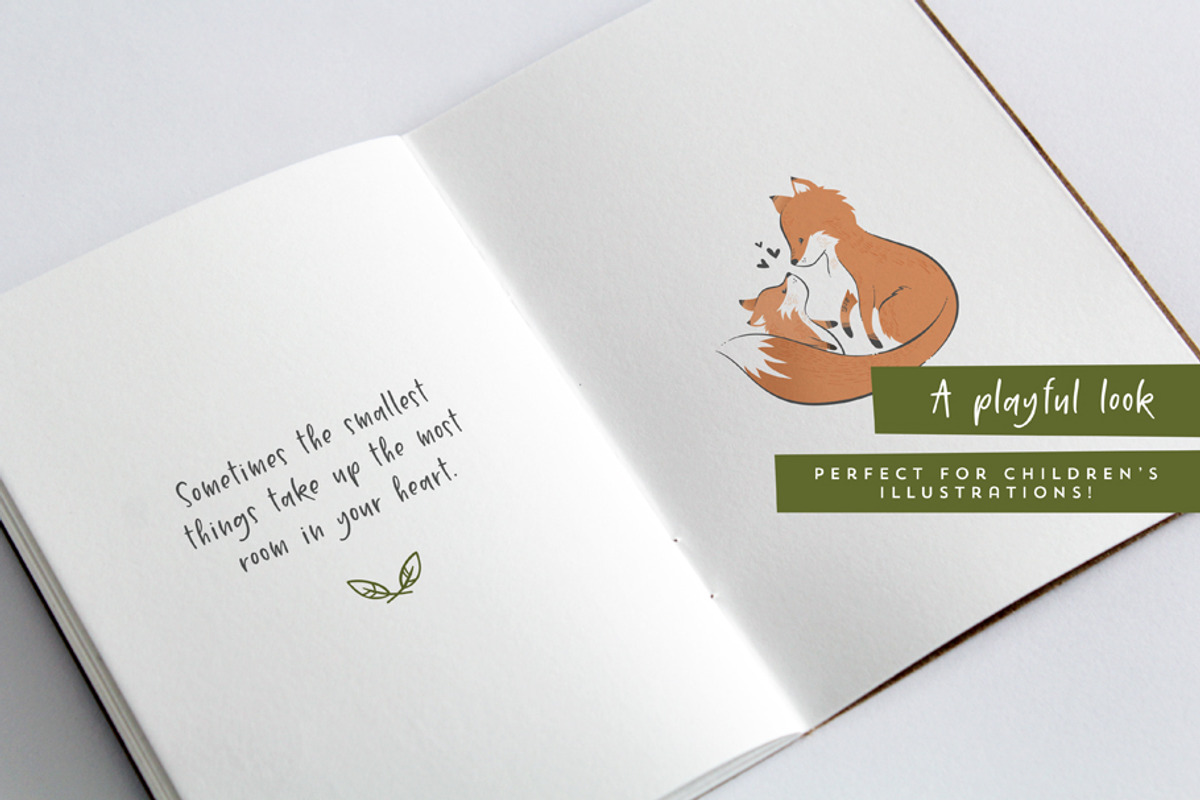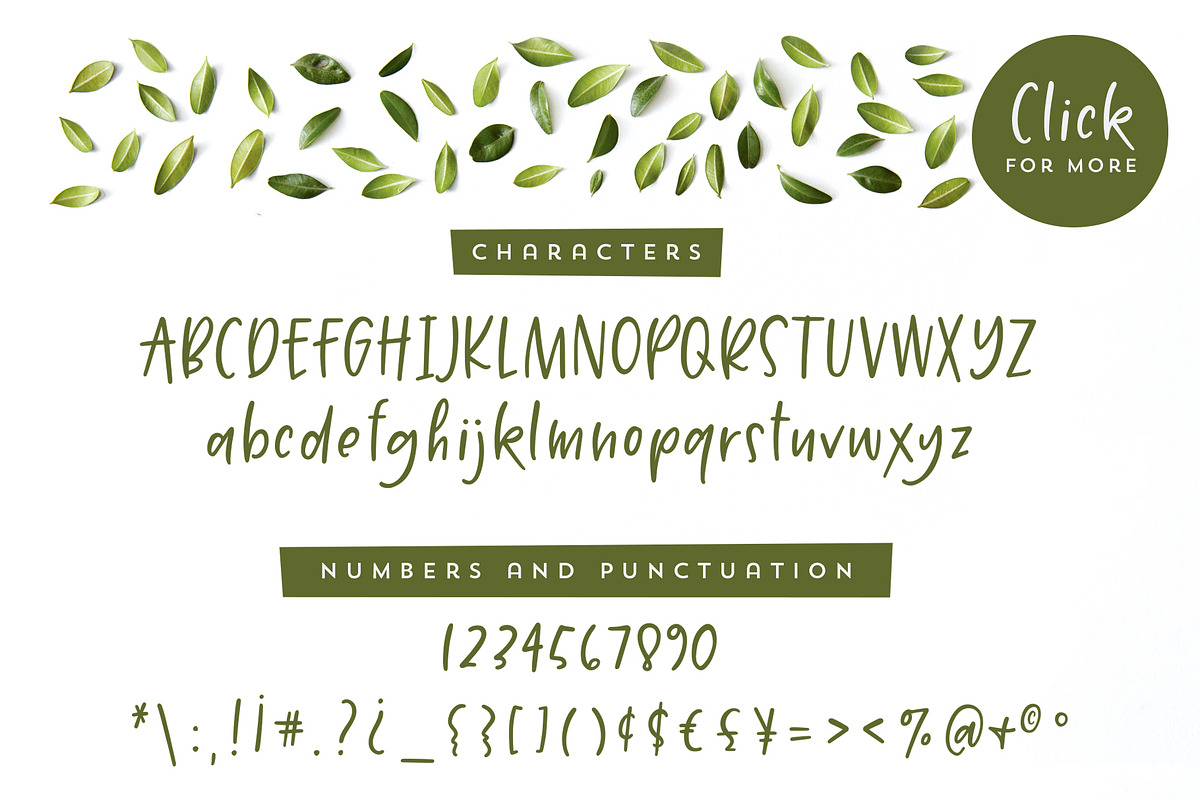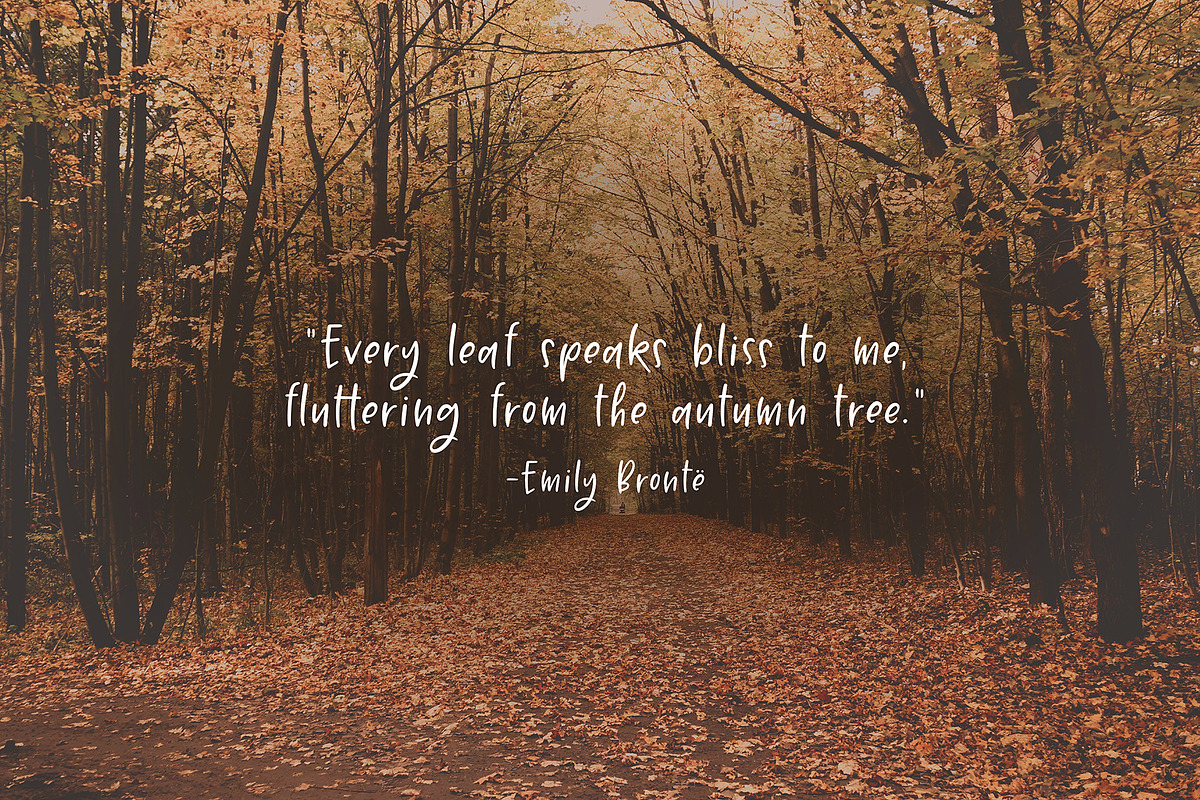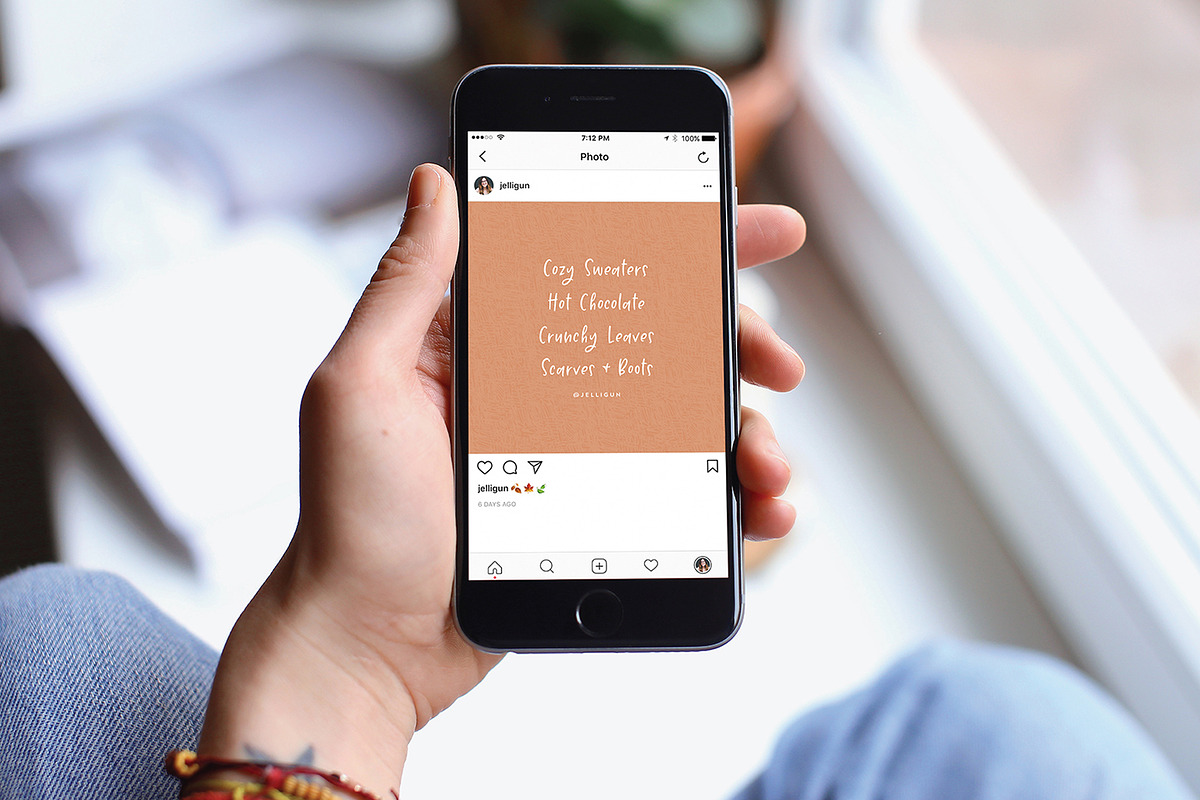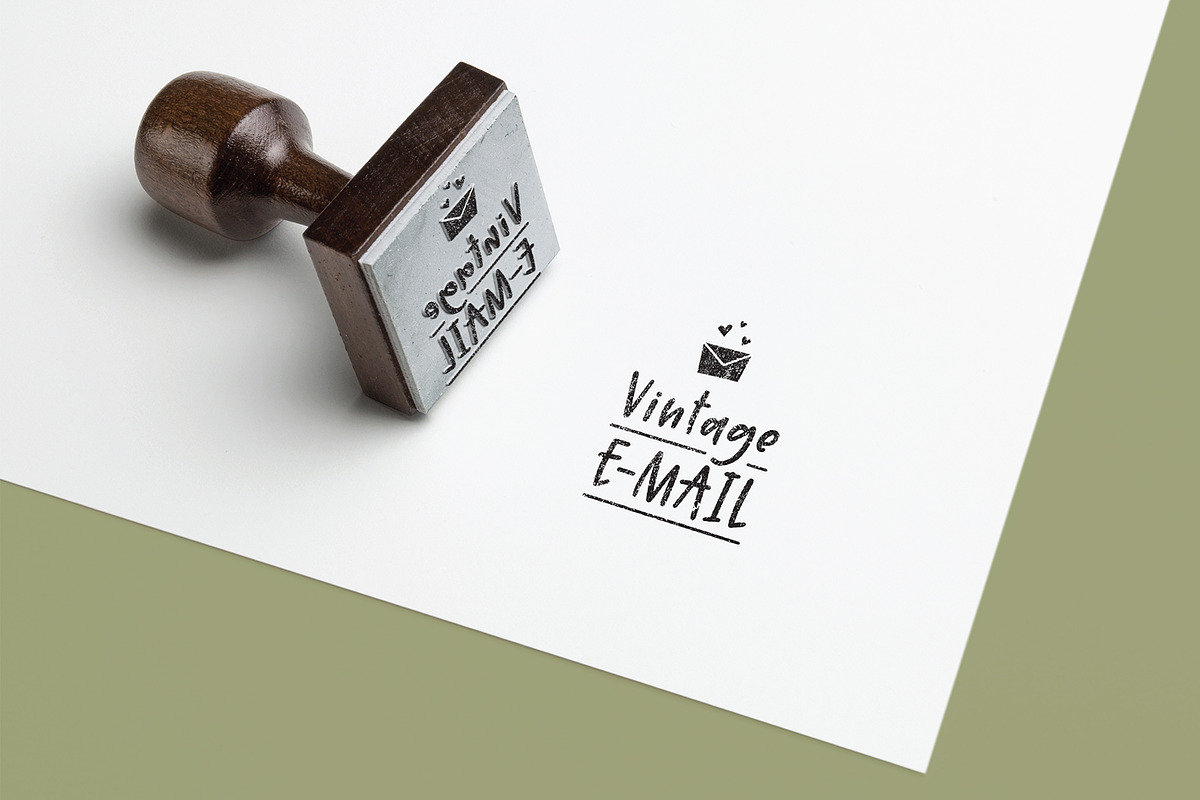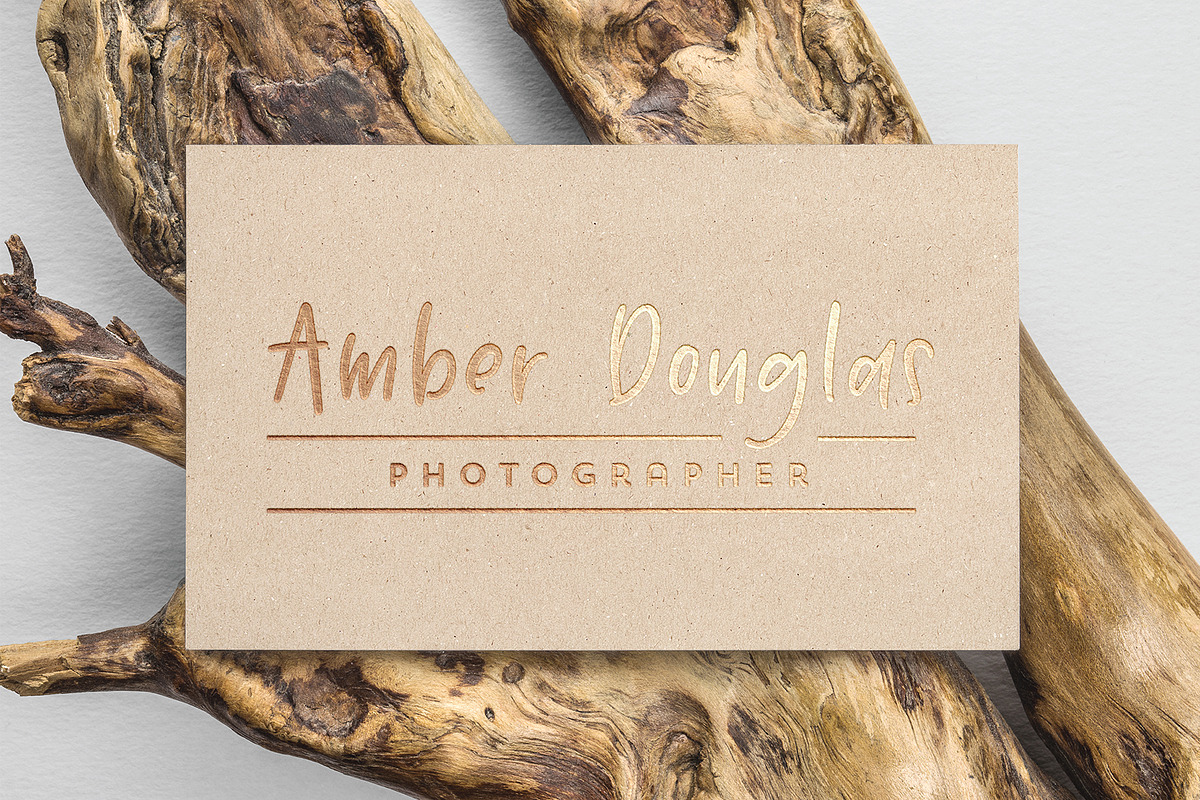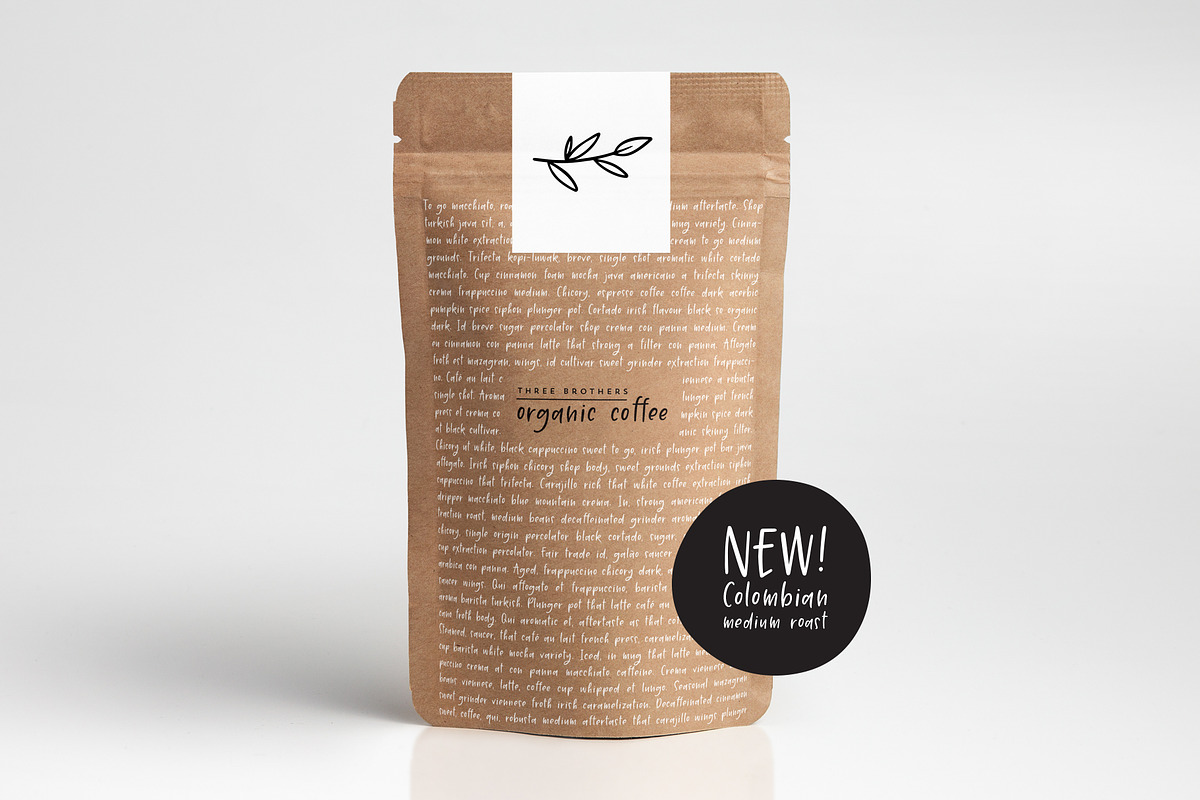
Winston Park | A Handwritten Font
Winston Park is a friendly font, loaded with whimsy and handwritten personality. The playful letters give your text a sweet, hand-lettered feel, through the use of alternates and ligatures. Try Winston Park for stationery, social media, children's books and illustrations, magazines, marketing, and more!
- Standard English uppercase and lowercase characters
- 18 double letter ligatures
- A large range of punctuation
- Multilingual support for Western European languages